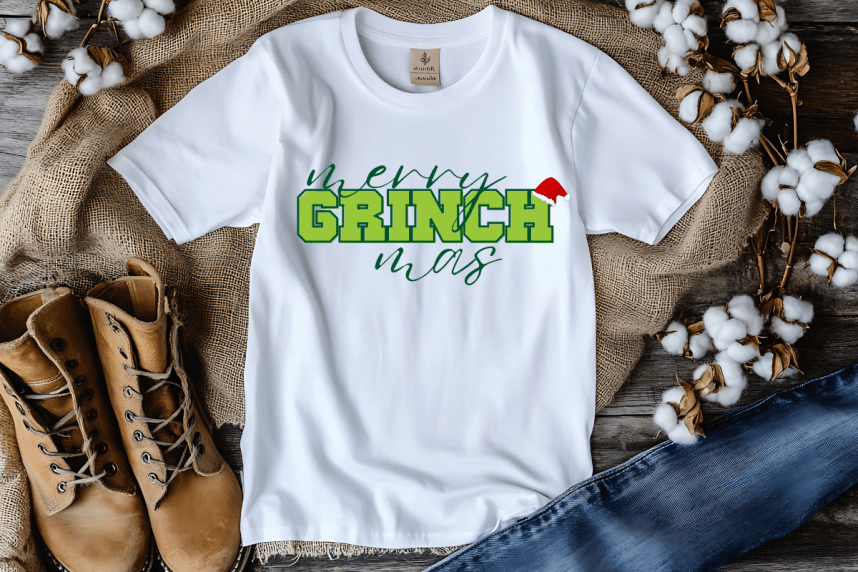
Sport Grinch Font
Sport Grinch Font, a uniquely sporty yet festive font. It beautifully combines athletic flair with a hint of Christmas charm and is enriched by elegant strokes and a subtle cool touch. Ideal for enriching any design project, Sport Grinch promises to take your creativity to new heights. It’s an excellent choice for branding, print-on-demand, t-shirt designs, captivating titles, romantic wedding designs, exquisite invitations, attention-grabbing signage, remarkable logos, stylish labels, and much more! Witness the magic Sport Grinch can add to your creative endeavors.